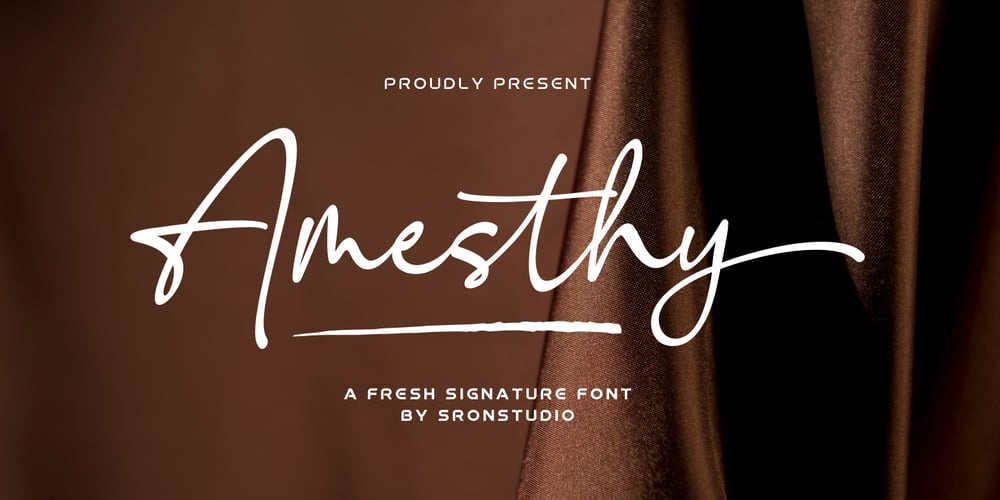
Amesthy Font Family was designed by Muhamad Yusron Billah and published by Sronstudio. Amesthy contains 1 styles and family package options. “Amesthy” is a sophisticated signature-style font that adds elegance and personal touch to your designs. With flowing lines and stylish flourishes, it exudes refinement and luxury. Perfect for logos, invitations, and personal branding. Embrace the beauty of a handwritten signature with “Amesthy” and make a lasting impression.Features: Swashes alternate Uppercase and lowercase letters Multilingual, numerals, and punctuation Simple Installation Work both on Mac and Windows